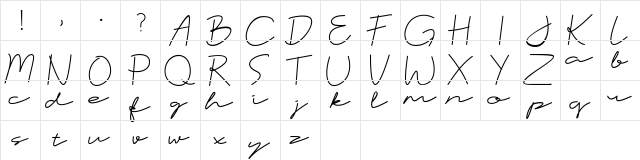
Catalyna Regular
| Designer | Galih Setyawan |
Design Context for Catalyna Typeface
Catalyna is a composed and adaptable typeface that performs quietly and consistently across a wide range of design contexts.